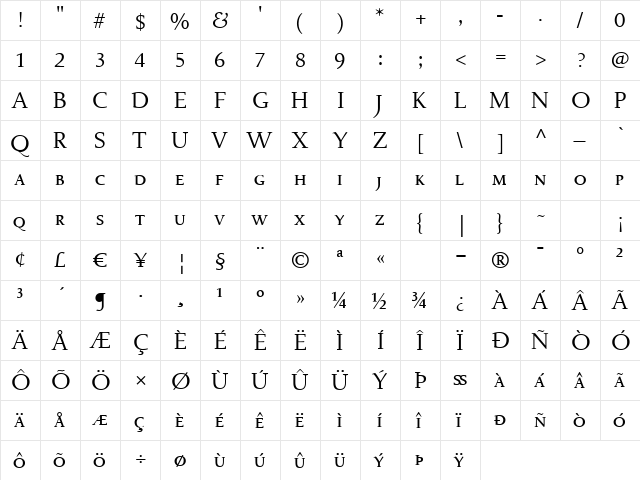
BelenSmall Caps Regular
Design Context for BelenSmall Caps Typeface
BelenSmall Caps is a composed and adaptable typeface that performs quietly and consistently across a wide range of design contexts.